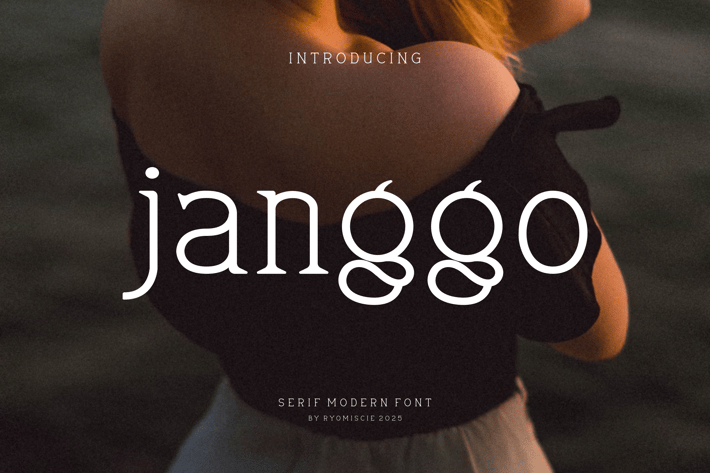
Janggo - Serif Modern Font
Introducing our new product Janggo Font - Serif Modern Font
LJanggo Font - Modern Font is a bold and authentic display font. The font is suitable for any branding project like logo,
t-shirt printing, esport, and many more. outstanding in a wide range of contexts.
Janggo Uppercase
Janggo Lowercase